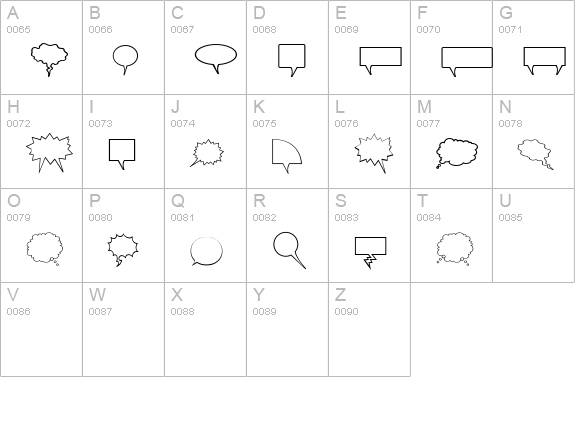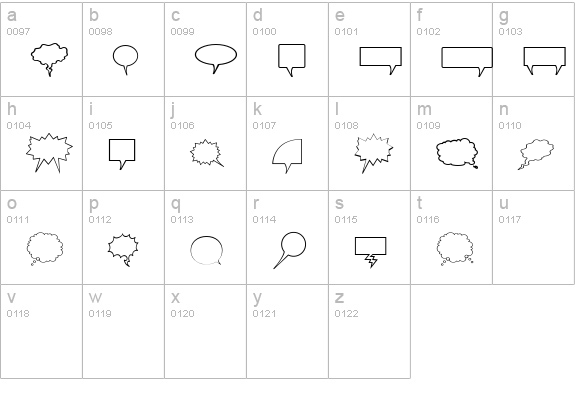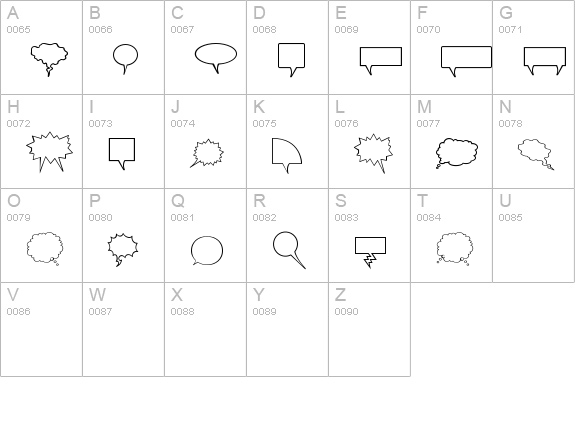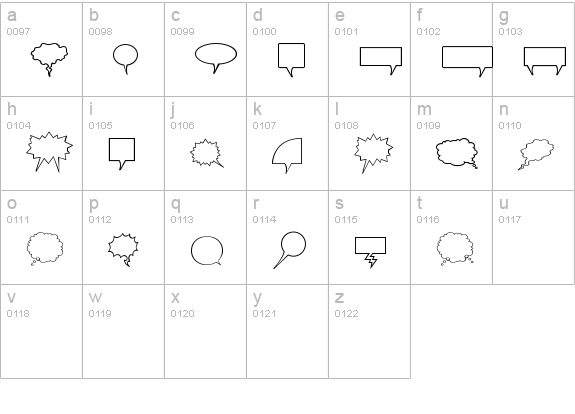
Komika Bubbles Font Details
Komika Bubbles is a delightful and playful font that exudes a sense of fun and whimsy. This unique typeface features rounded edges and bubbly shapes that give it a cheerful and welcoming appearance. Perfect for adding a touch of lightheartedness to your designs, Komika Bubbles is ideal for children's books, posters, invitations, and more. What's even better is that Komika Bubbles is available for free download at FontsMarket.com. This means you can easily access and use this charming font in your projects without any cost. So why wait? Give your designs a cheerful and bubbly touch with Komika Bubbles today!